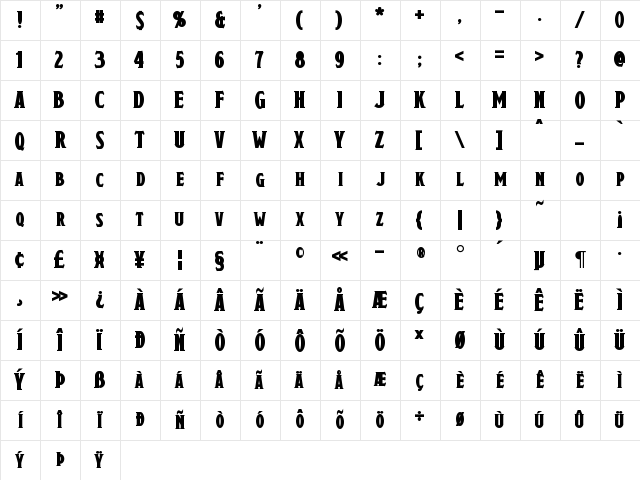
Draconis Bold
Foundry: Pixel Sagas
Designer: Neale Davidson
Design Context for Draconis
Draconis is a composed and adaptable typeface that performs quietly and consistently across a wide range of design contexts. Its bold stroke weight gives it real presence on the page.